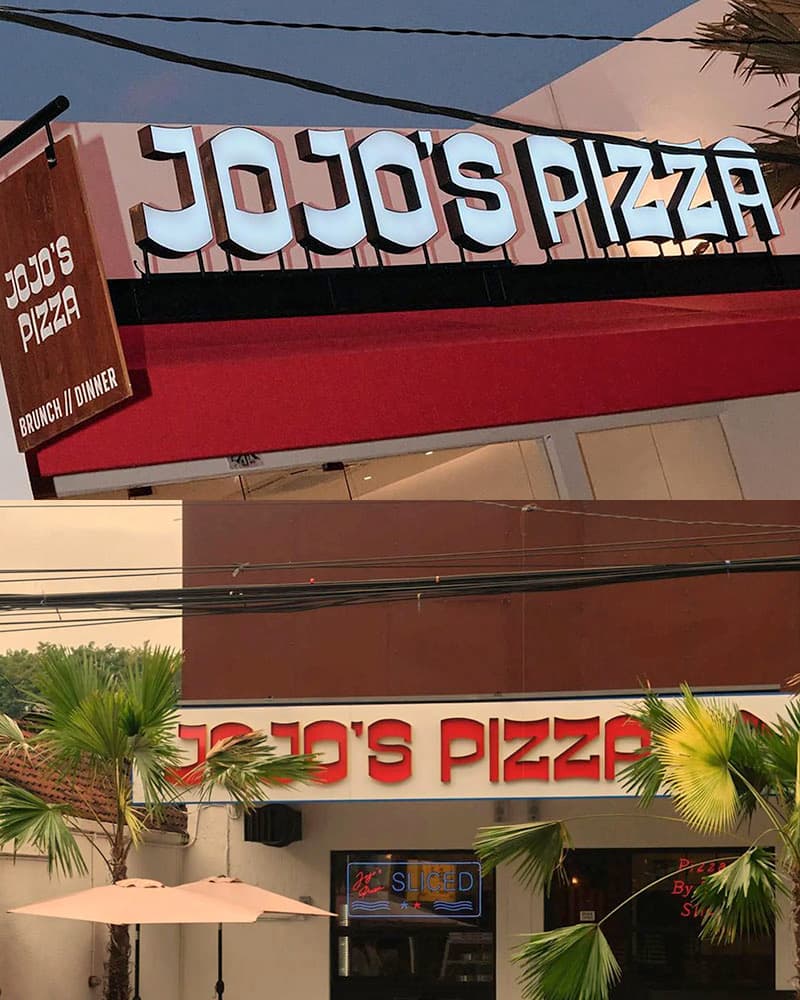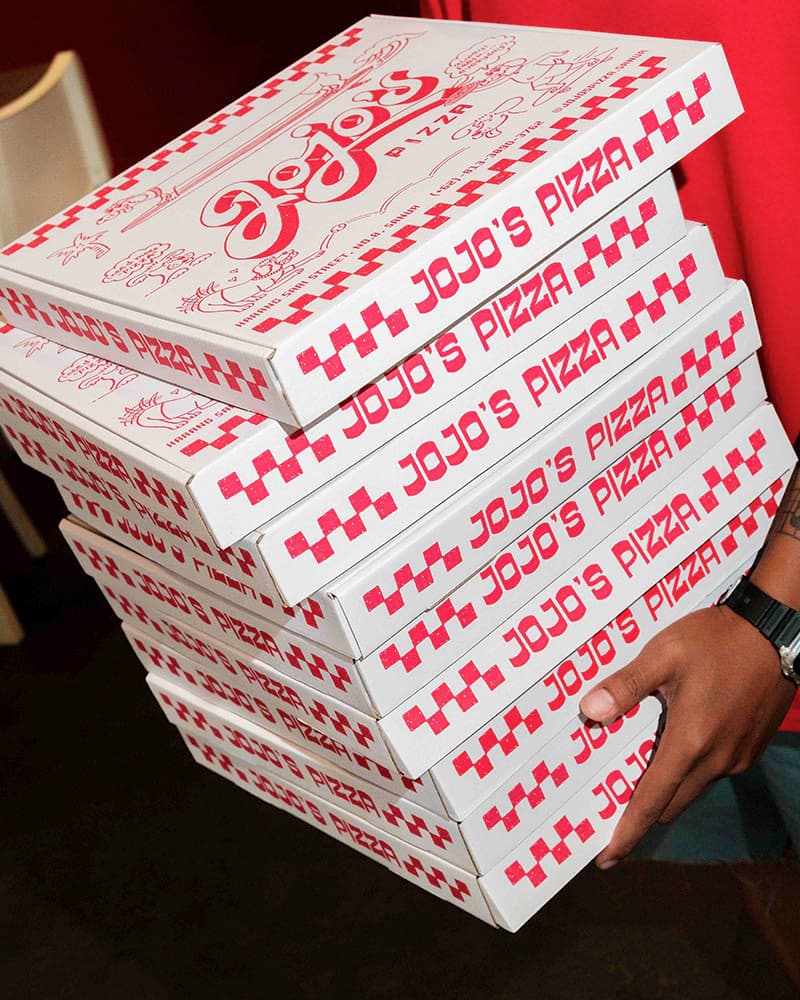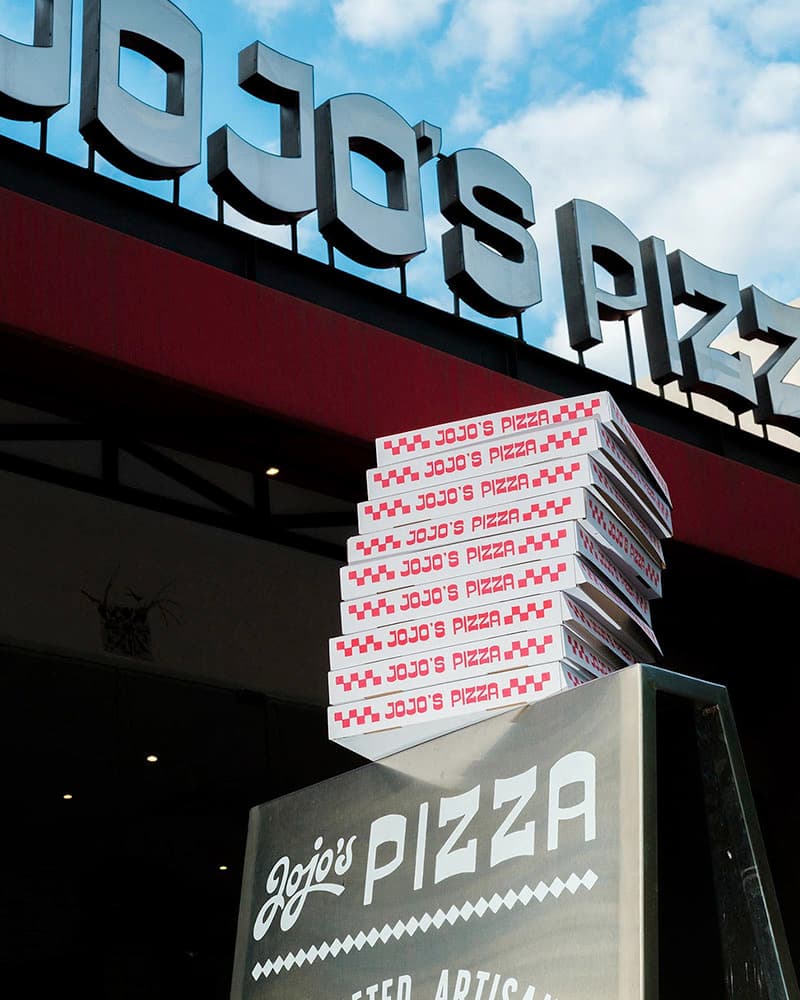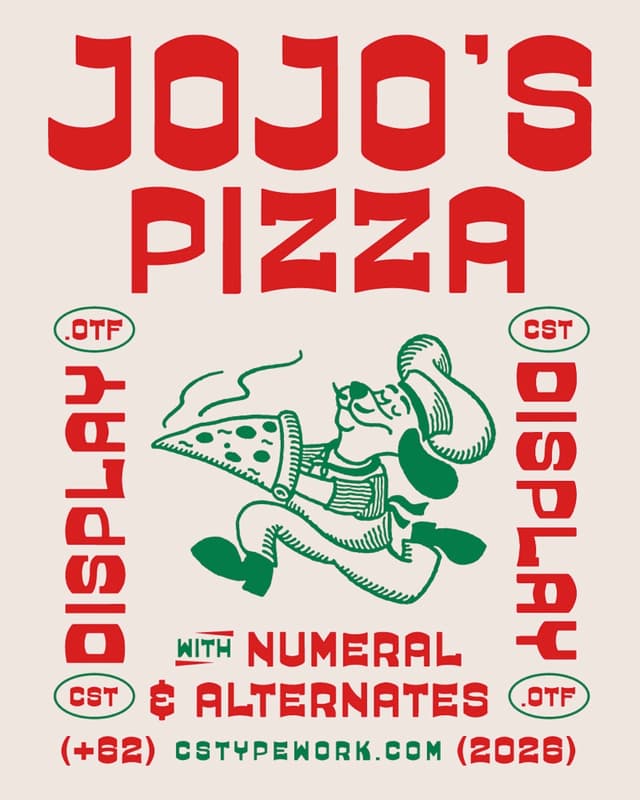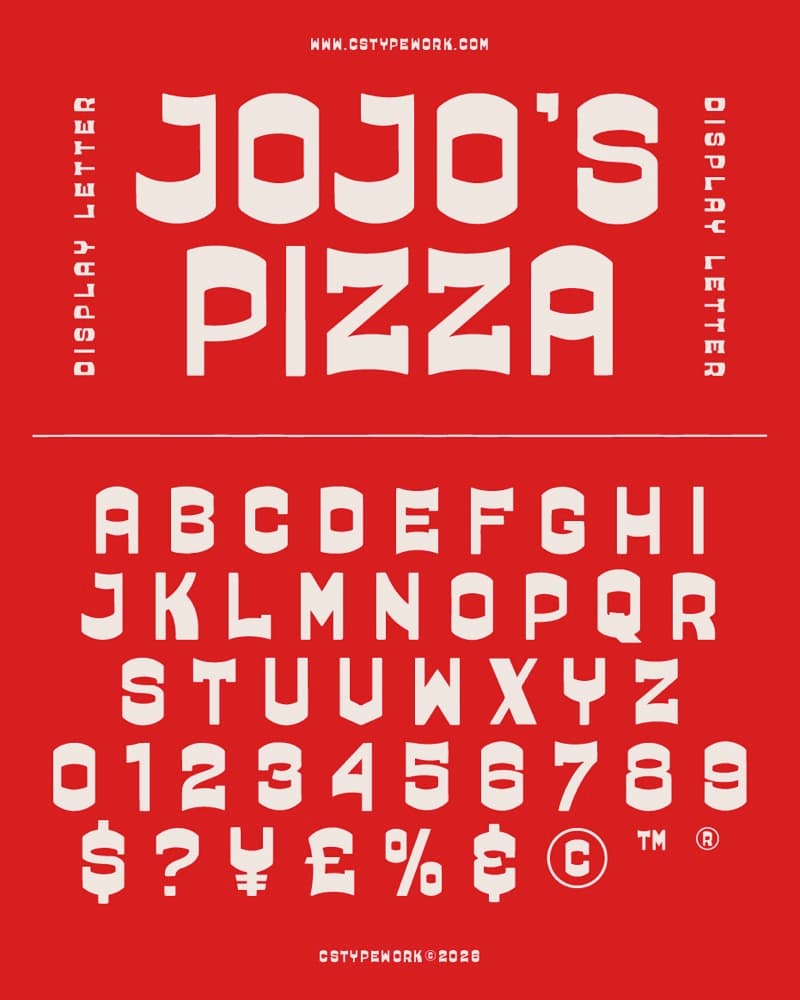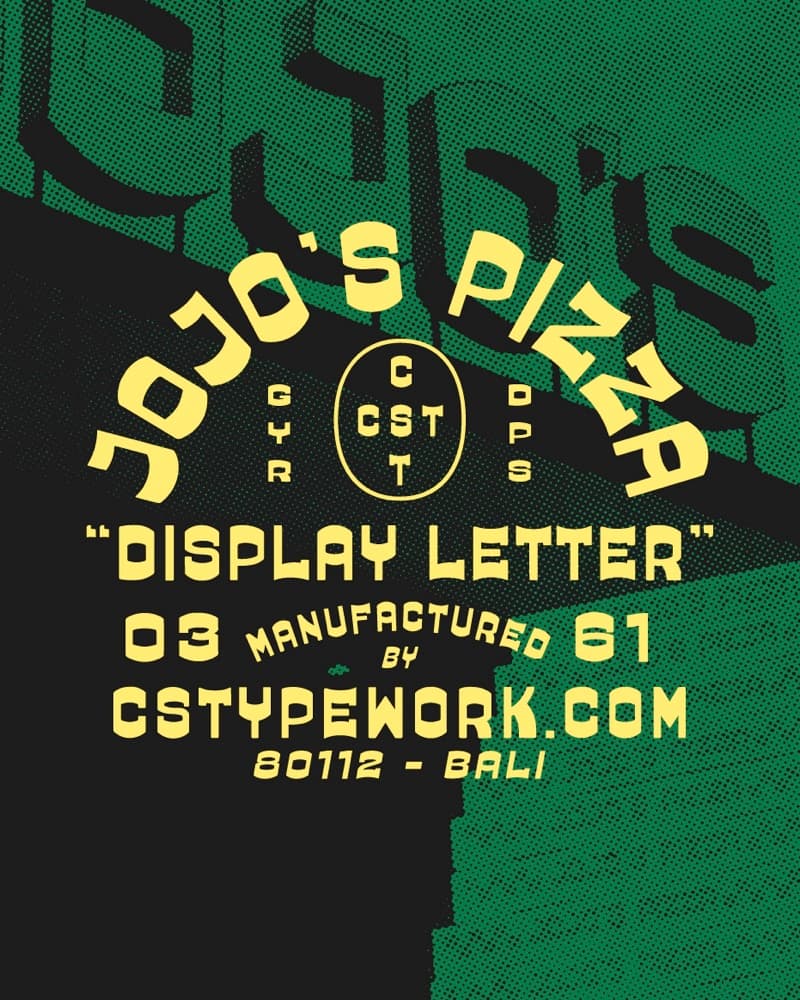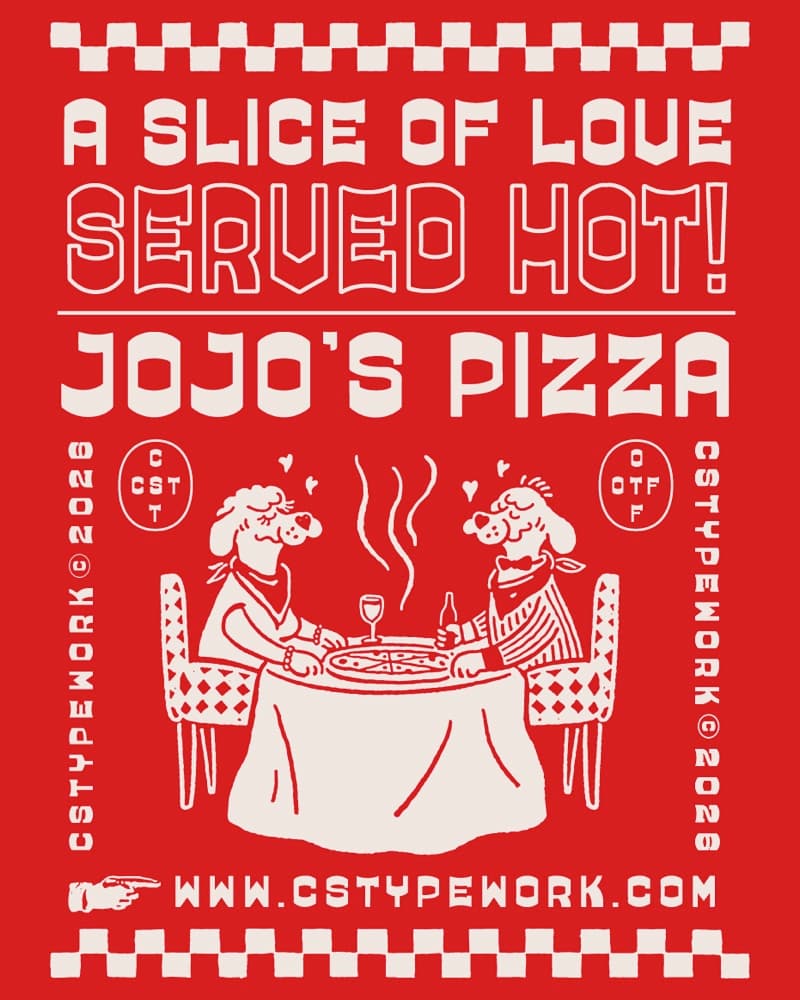
JOJO'S PIZZA CST
JOJO’S PIZZA CST is a refined display typeface designed for distinctive food branding.
Originally developed as part of a complete pizza identity system, this typeface was crafted to perform in real-world applications where clarity, presence, and personality must coexist. Its bold proportions and confident curves create a timeless, elevated feel while maintaining approachability.
Designed primarily for signage, packaging, and menu systems, JOJO’S PIZZA CST excels at large sizes, delivering strong visual impact without relying on excess ornamentation. Every letter is intentional, built to support brands that value craft, consistency, and lasting character.
Ideal for:
• Premium food and restaurant branding
• Signage and storefront applications
• Packaging and box design
• Editorial style menus and brand systems
JOJO’S PIZZA CST is not a novelty font.
It is a display typeface made to anchor a brand, quietly bold, carefully crafted, and built to last.